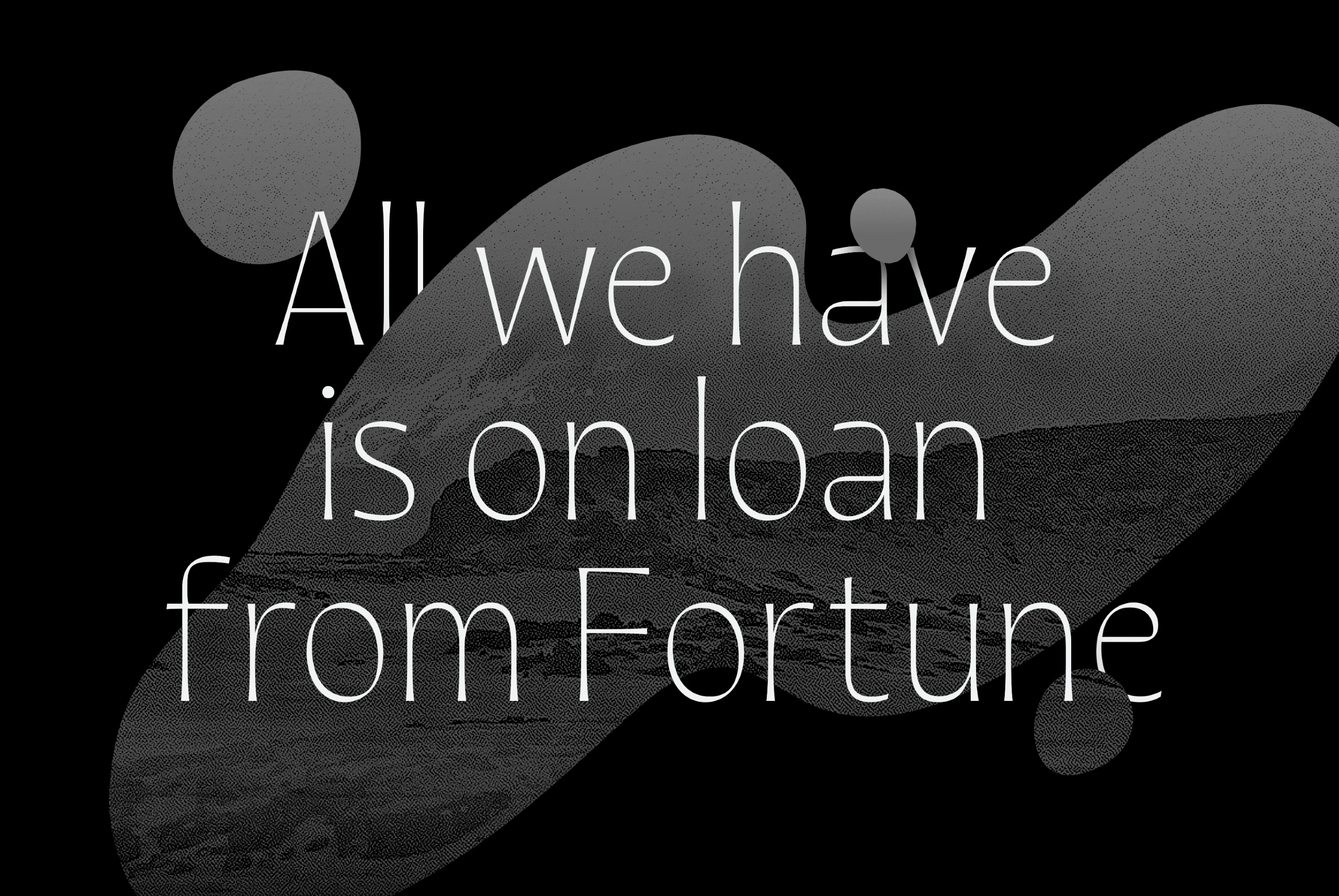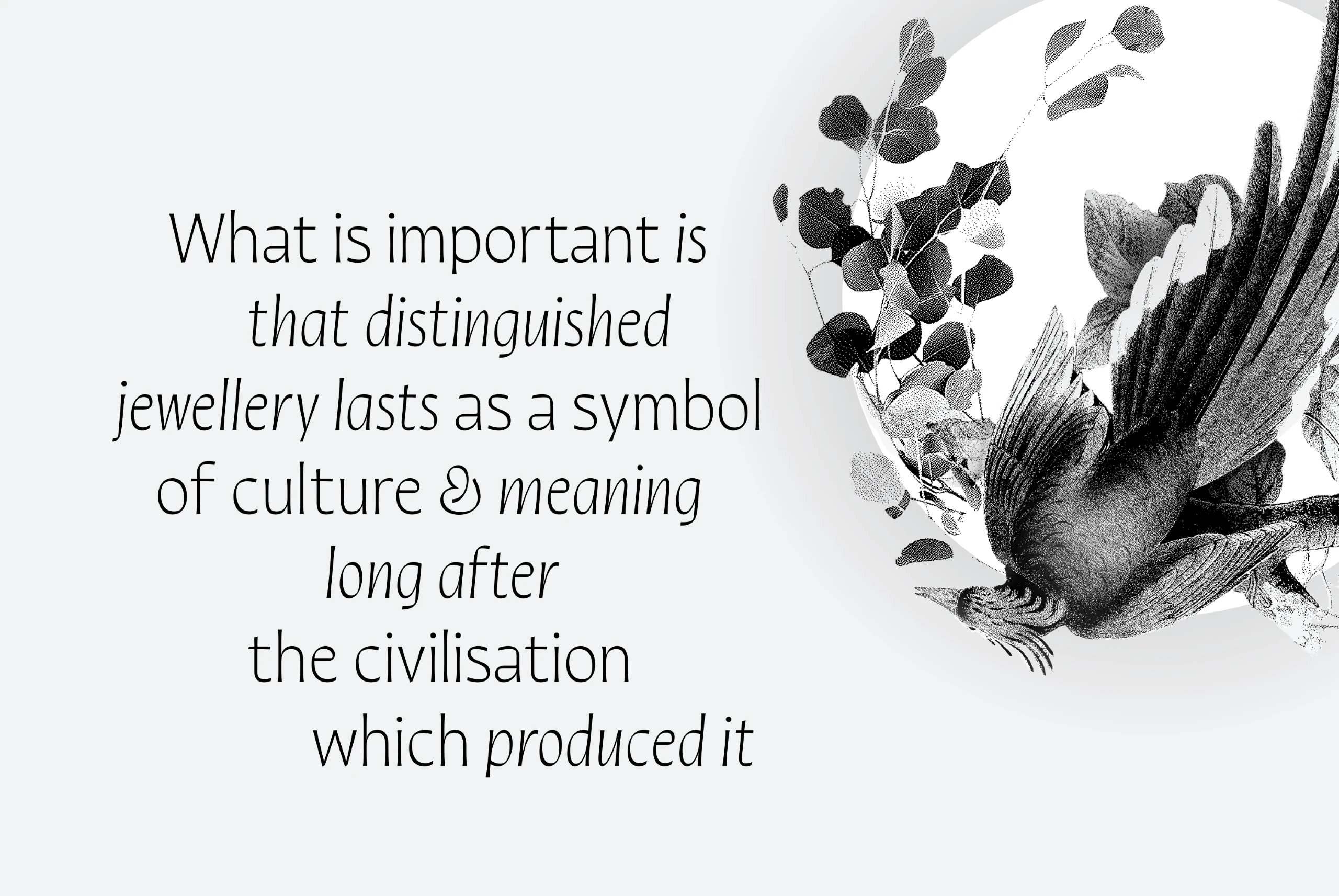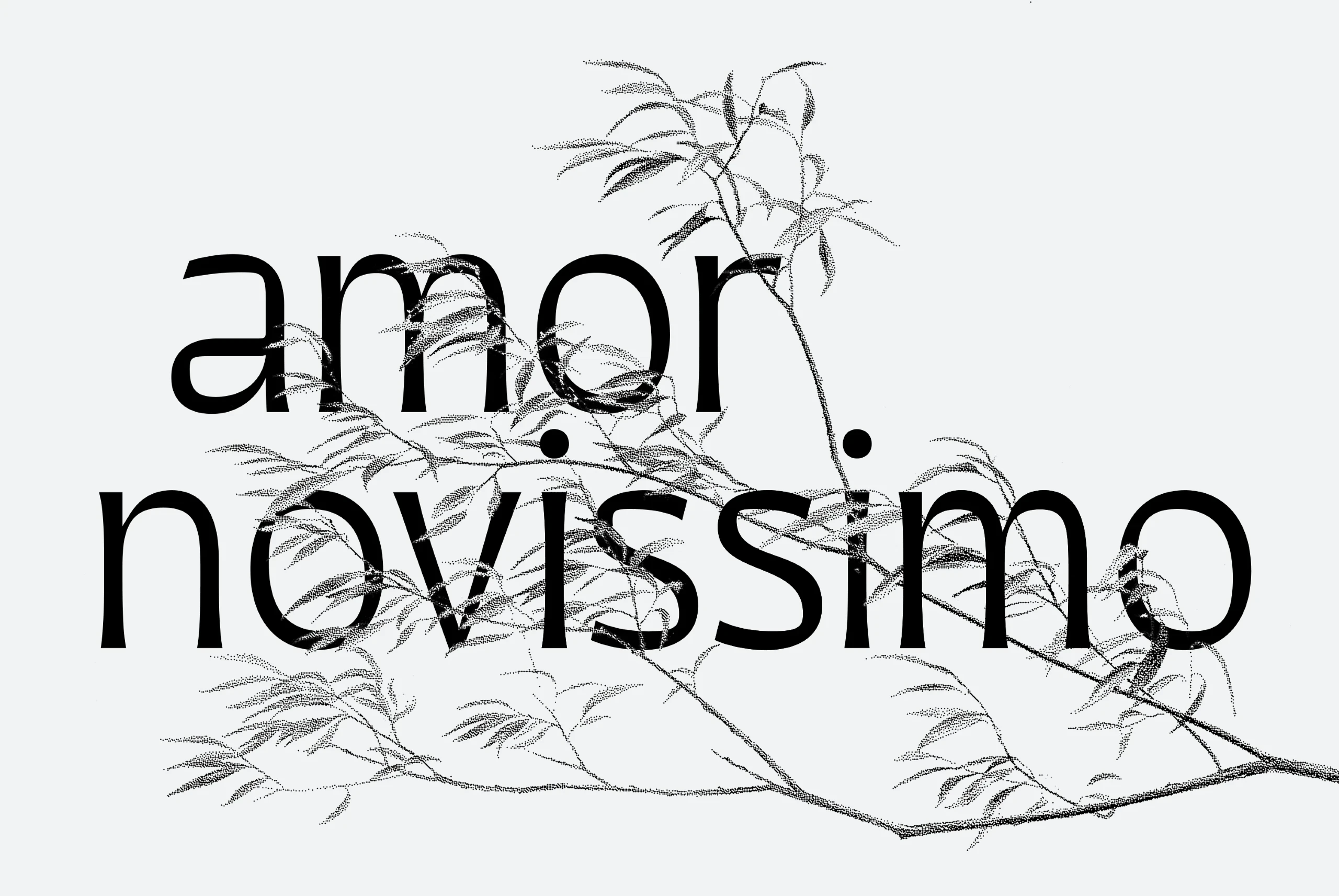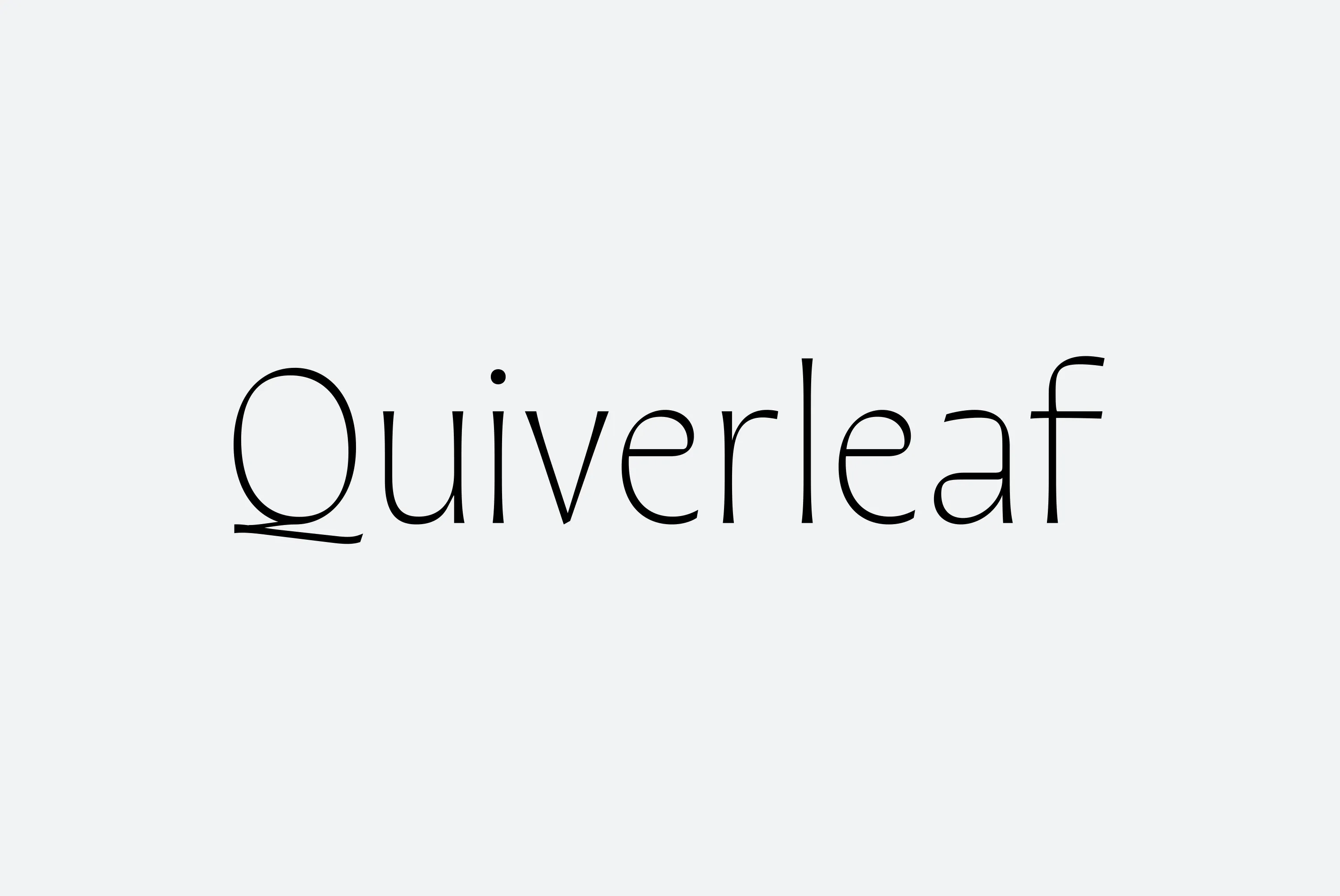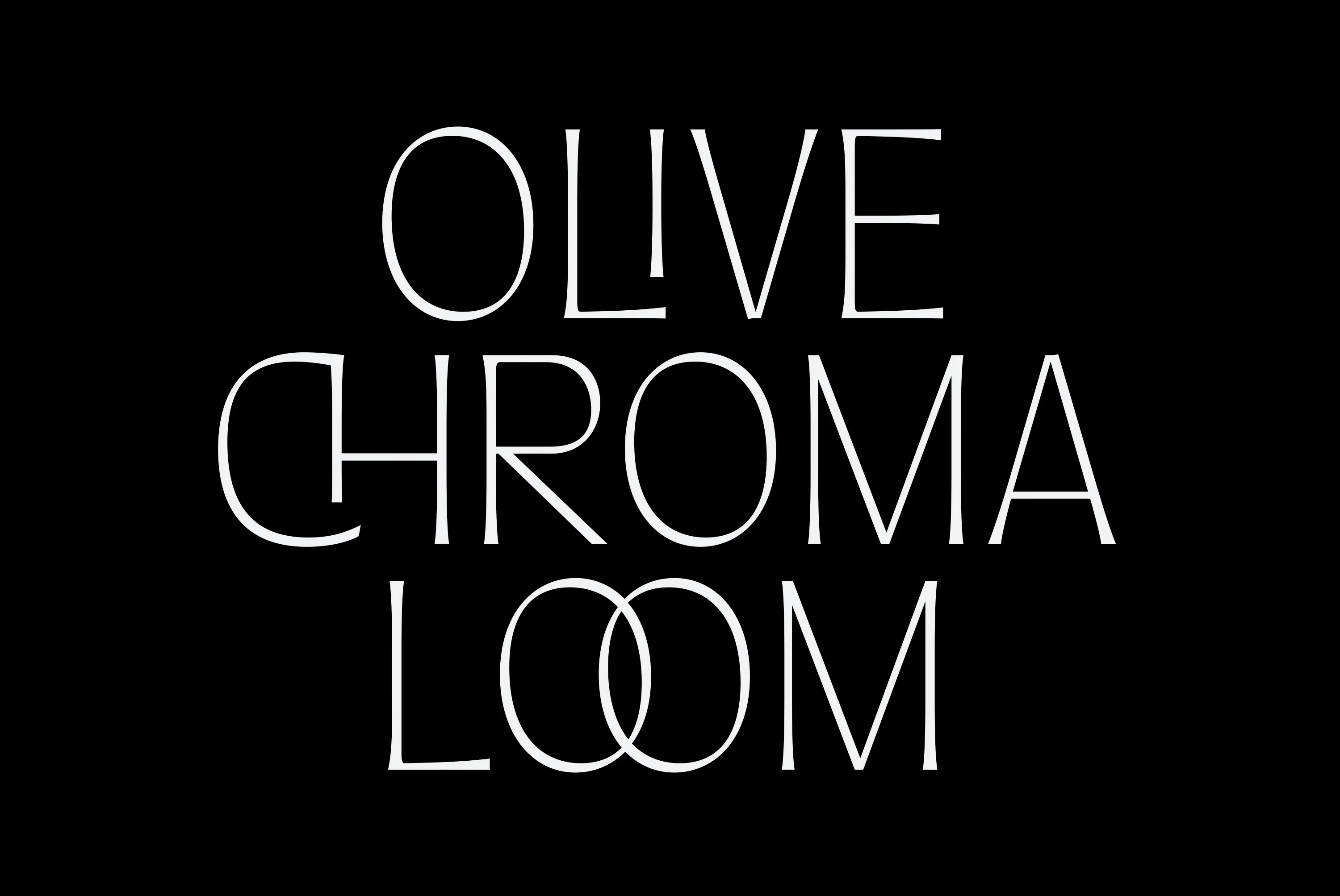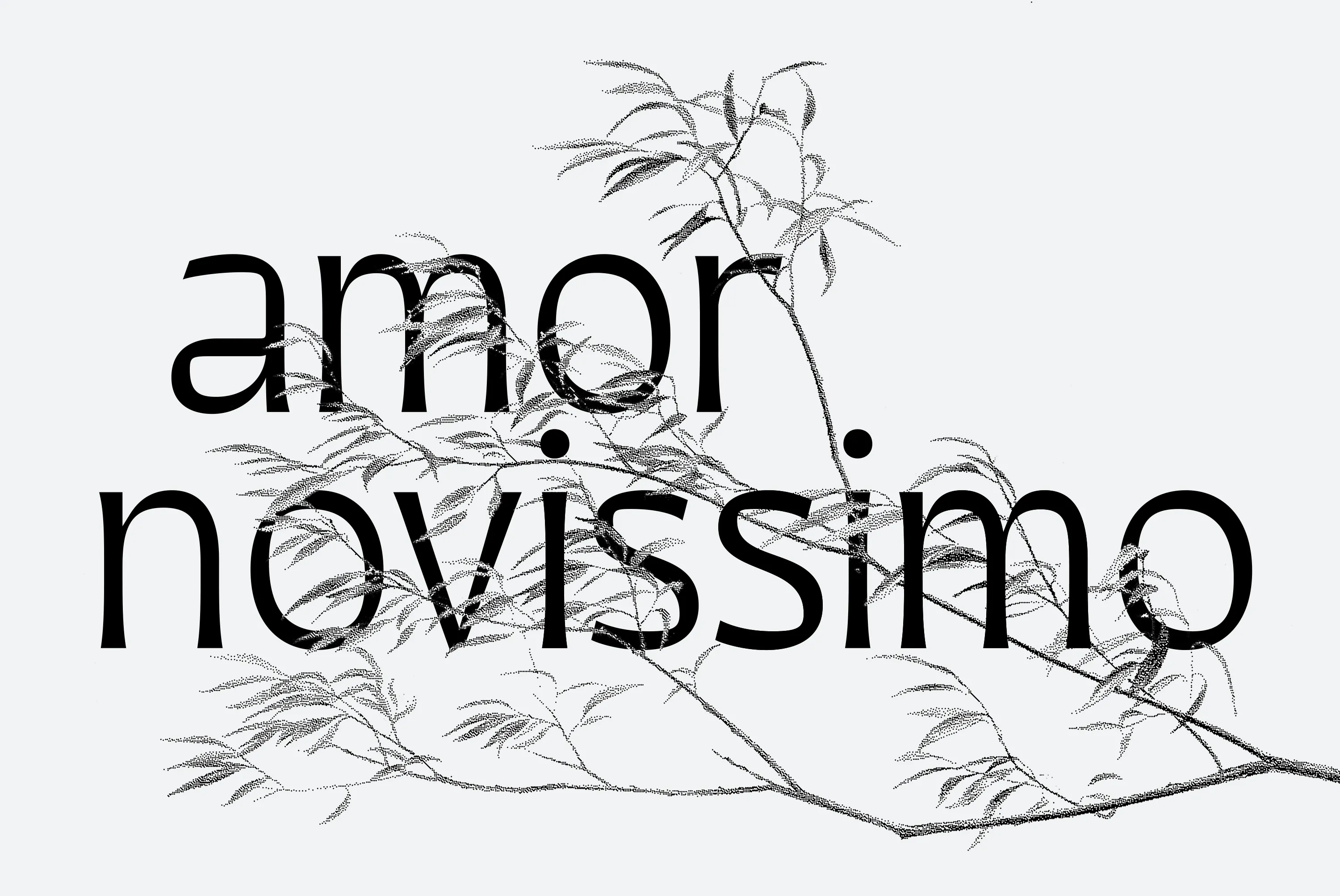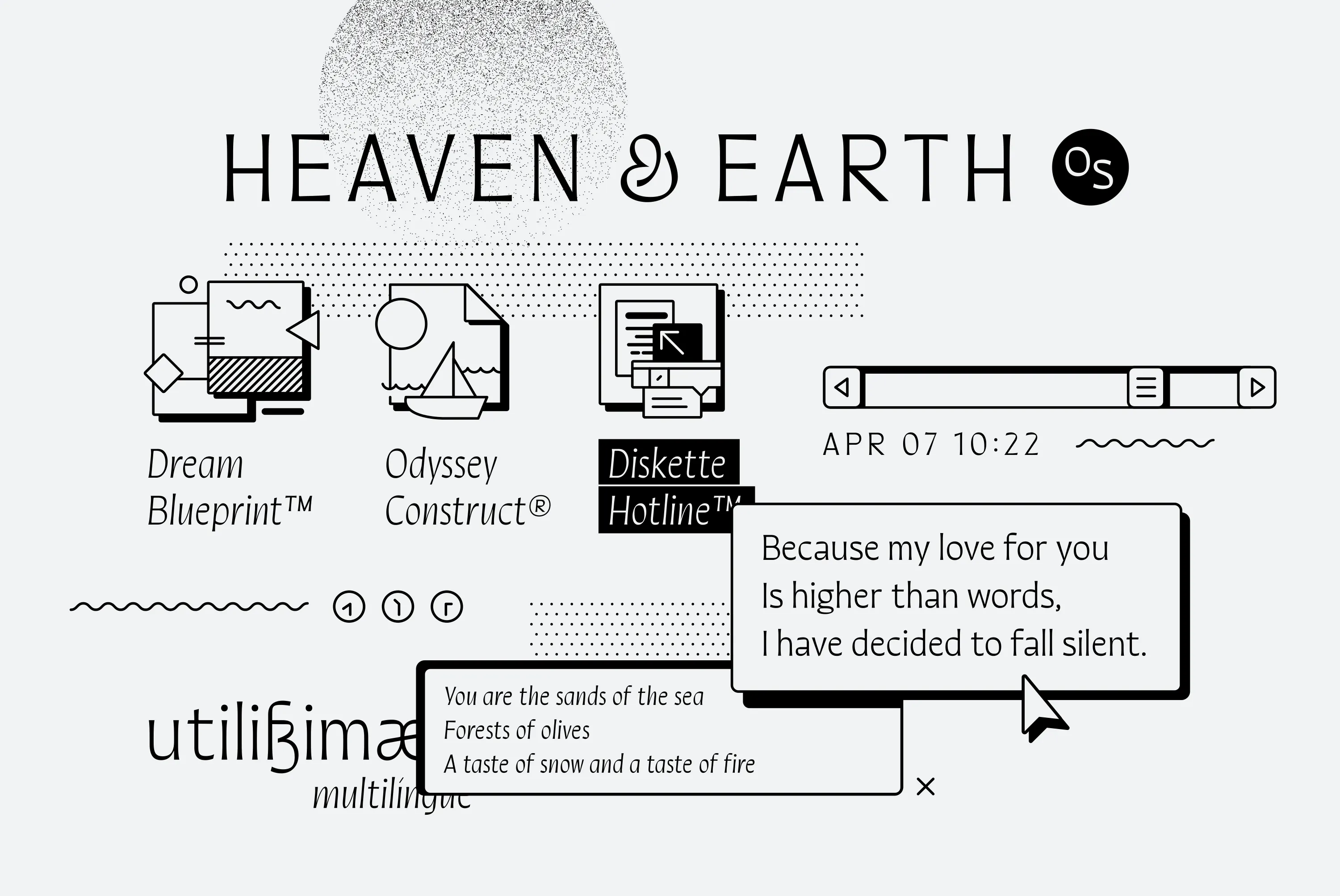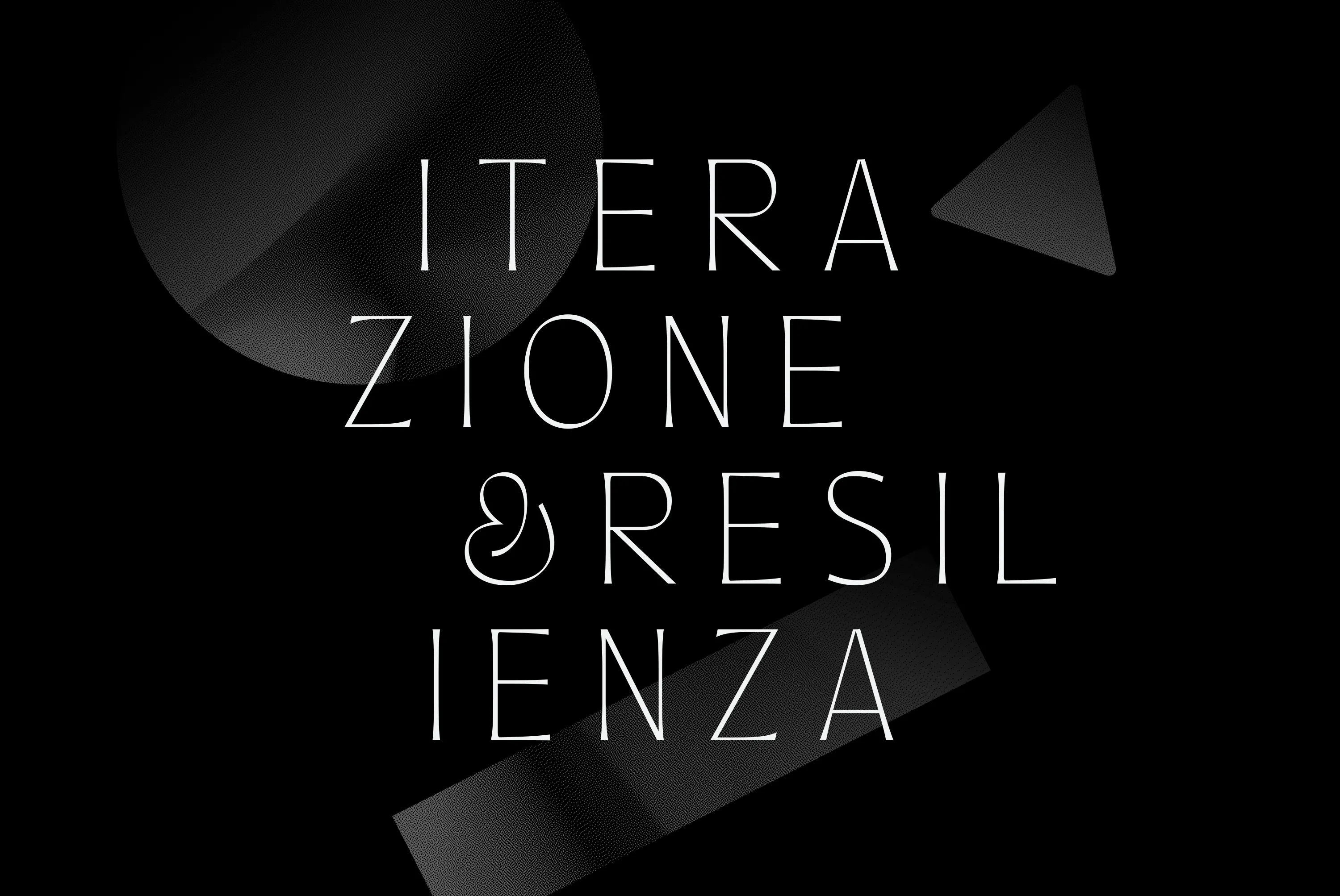
Quiverleaf
With the graceful movement of a ribbon, Quiverleaf CF glides effortlessly from letter to letter. Five weights – from a delicate thin to a hearty extra bold – combine with striking italics and wide language support for a well-rounded and expressive typeface. Quiverleaf’s versatile design allows for both beautiful text and airy headlines.
five Weights in Latin & Vietnamese • Capital Ligatures • Stylistic Sets Script
Language support includes Catalan, Chinese Pinyin, Croatian, Czech, Danish, Dutch, English, Filipino, Finnish, French, Fula, German, Hungarian, Indonesian, Italian, Latvian, Malay, Maltese, Norwegian, Polish, Portuguese, Romanian, Slovak, Slovenian, Spanish, Swedish, Turkish, Vietnamese